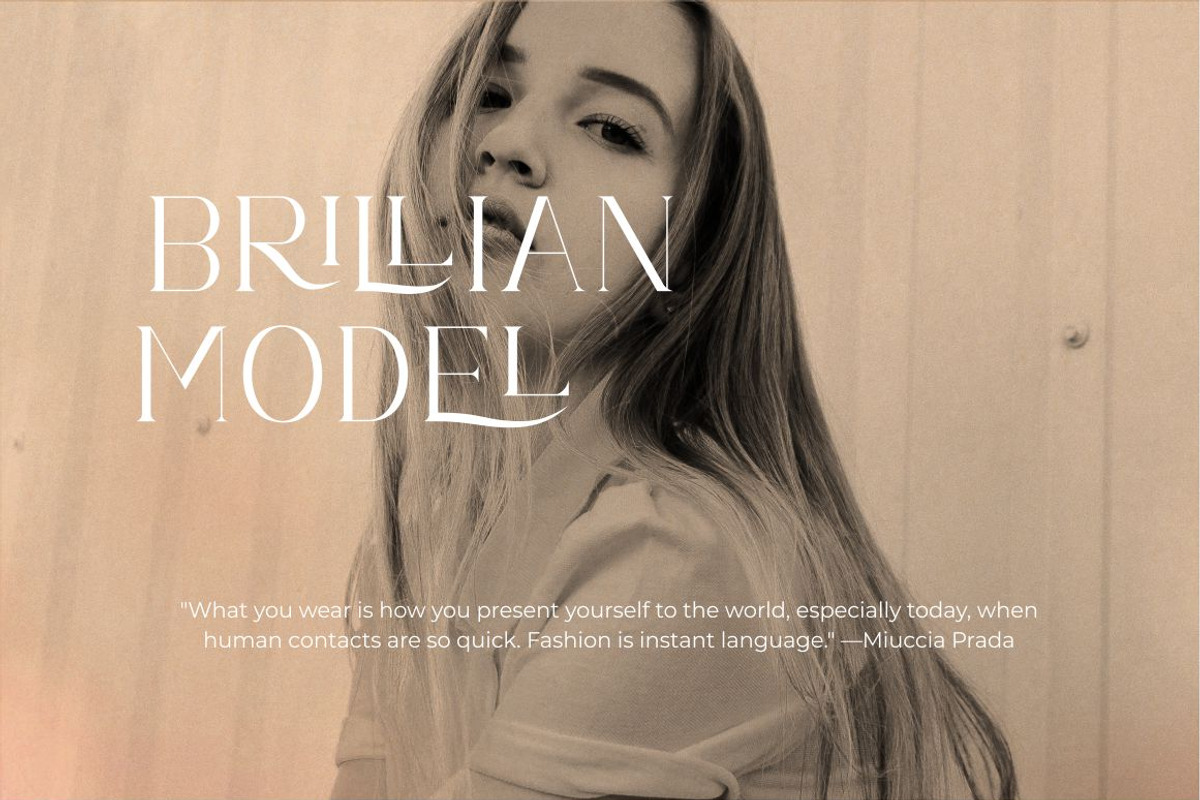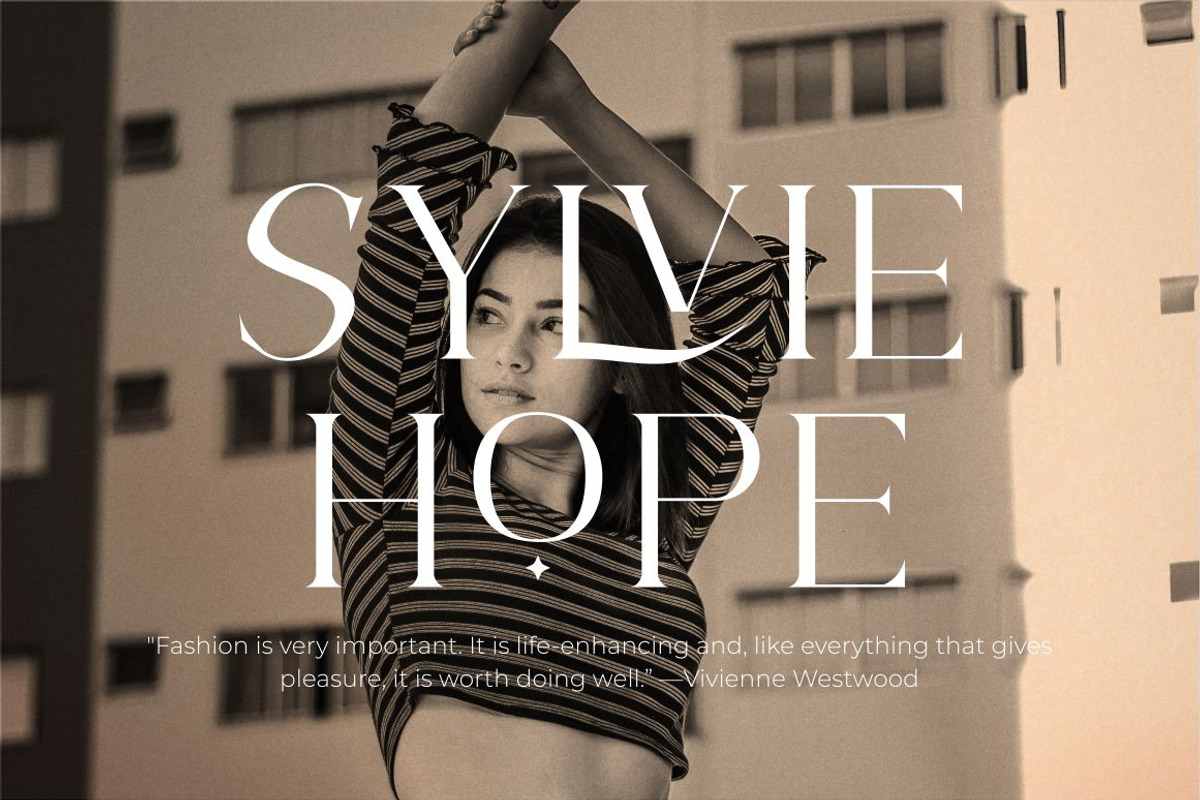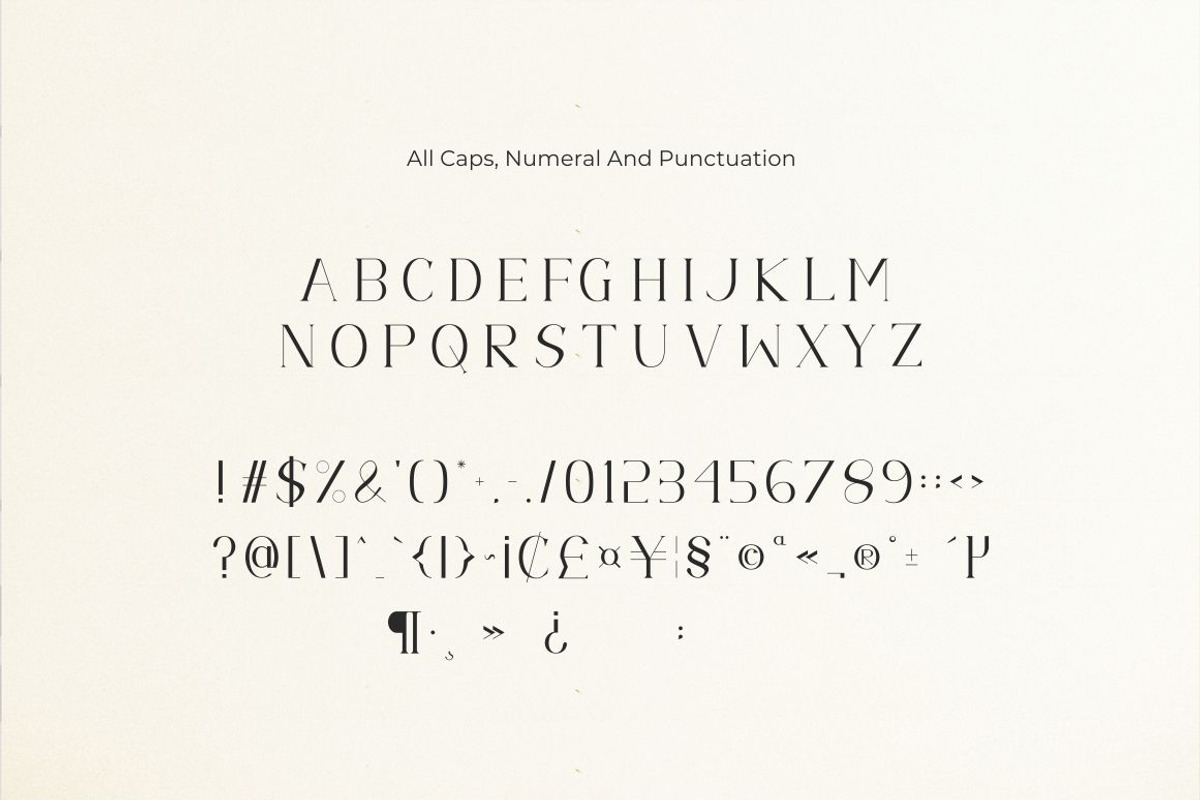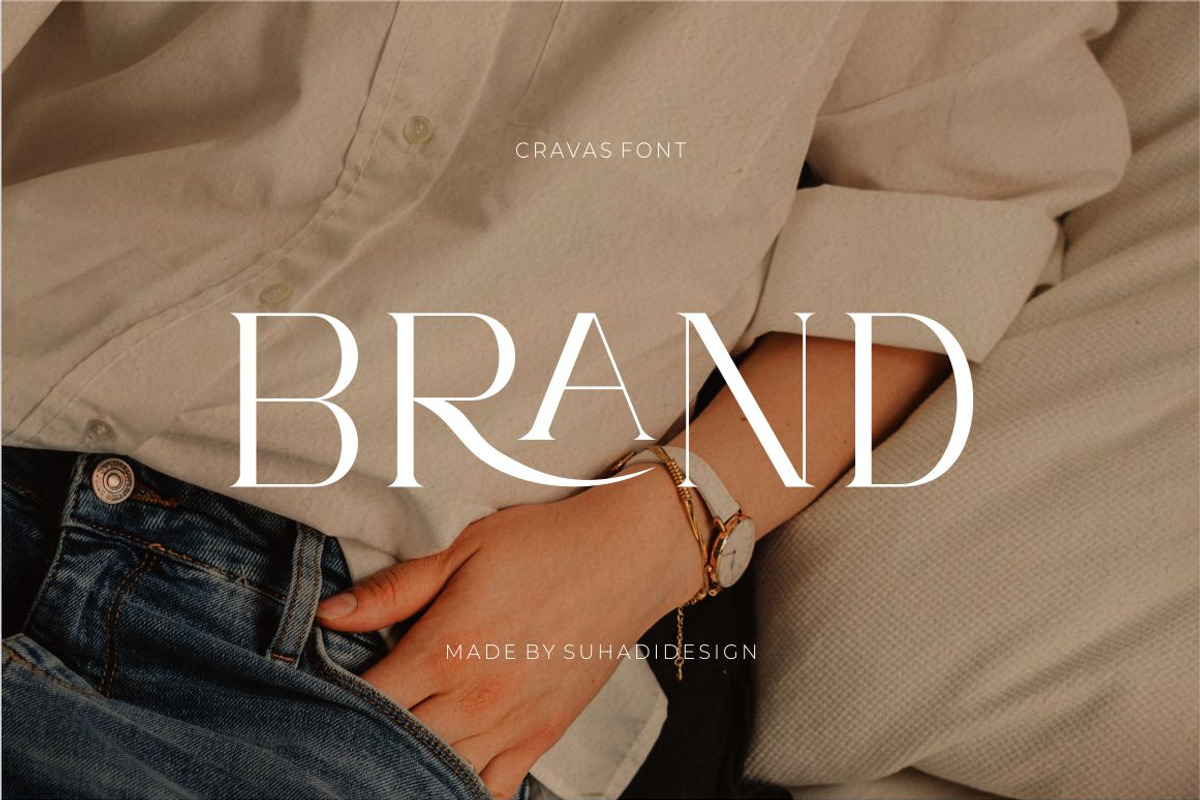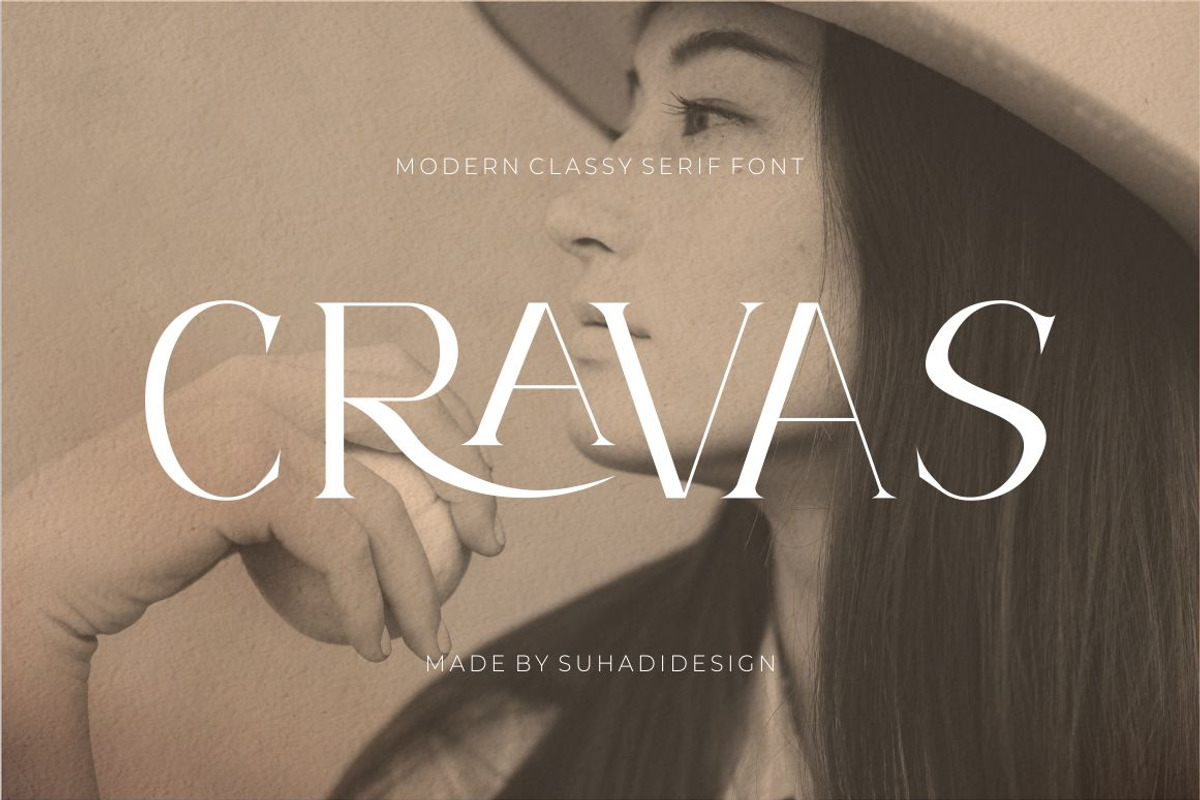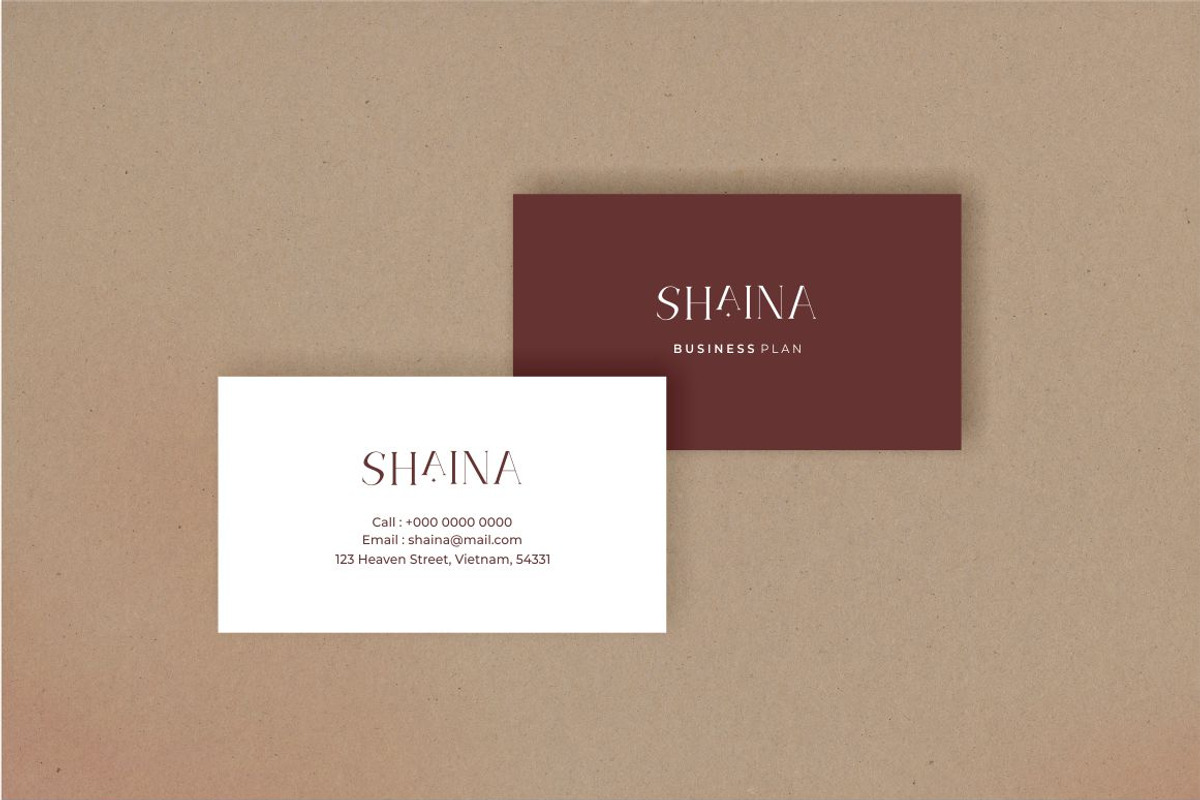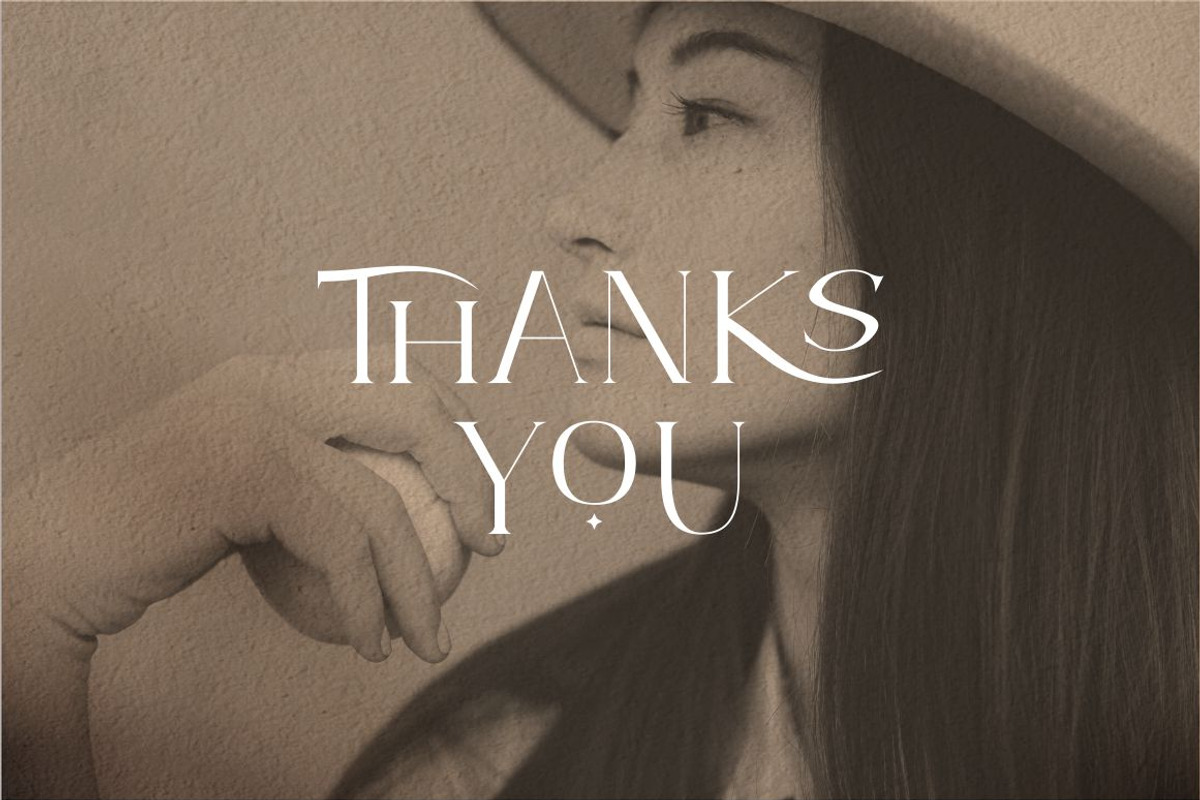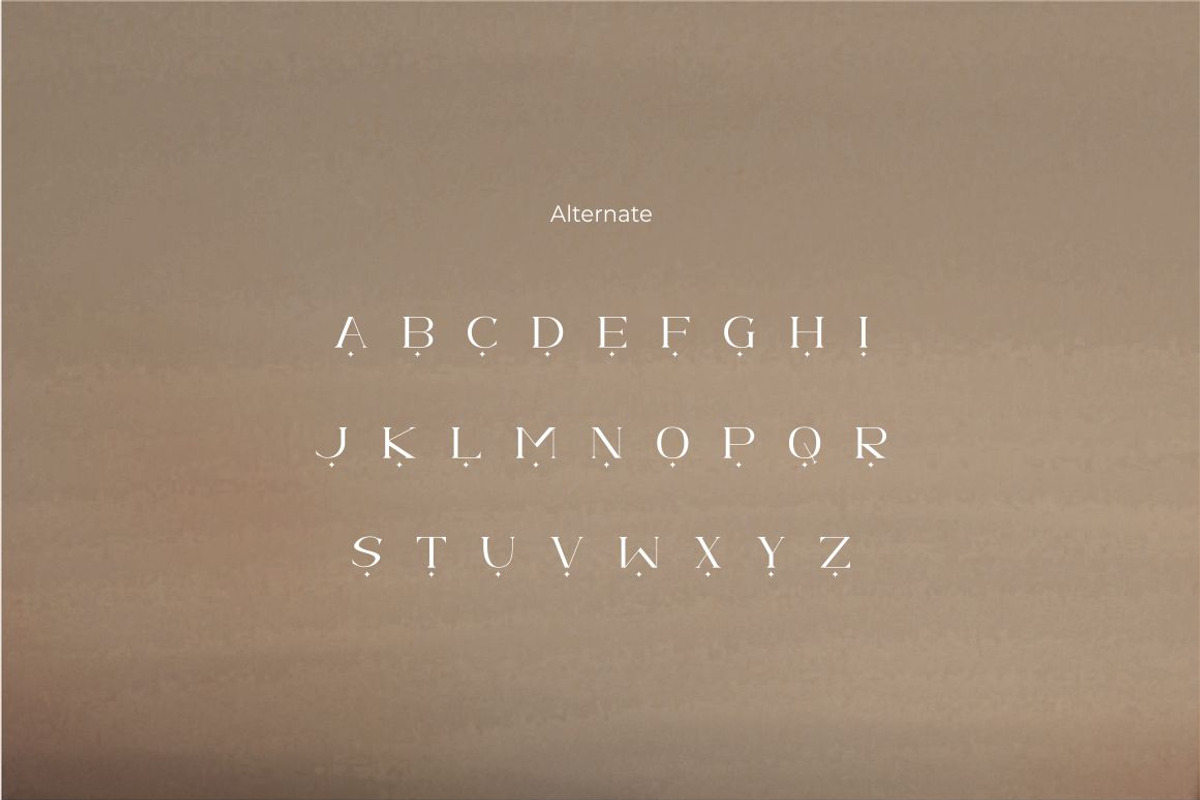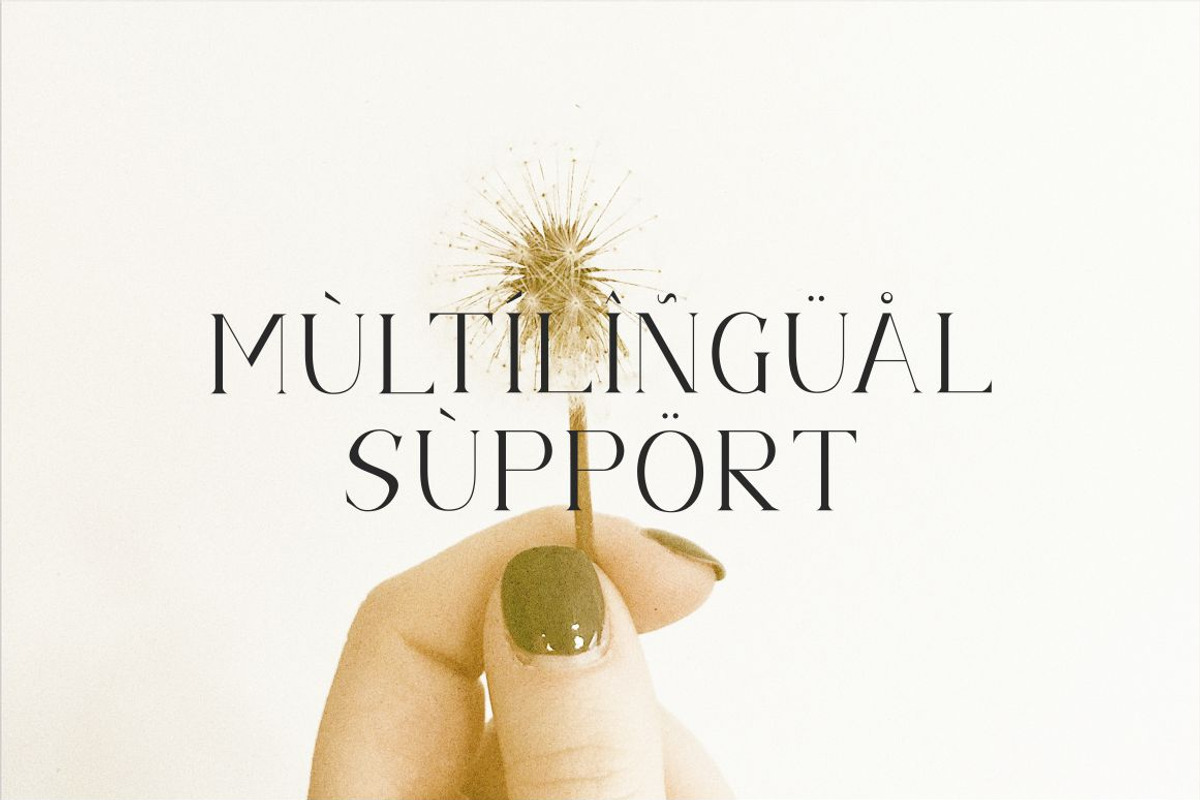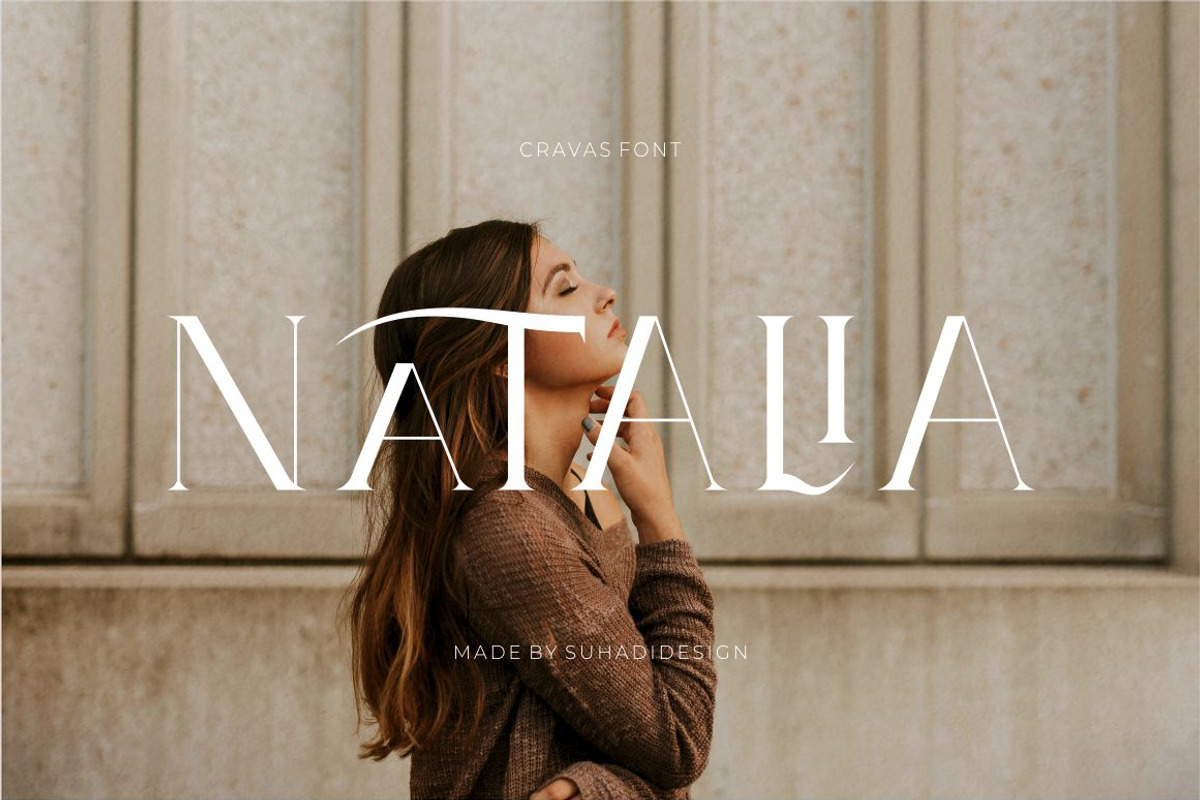
Cravas Classy Stylish Typeface Font
Hi Ladies and Gentlemen! According to the market demand, the font is more likely to be a modern font, so I decided to make this serif font in your view. Cravas font is a serif font with many ligatures very beautiful and popular, comes in a modern style to become a market favourite. We keep this font looking elegant, classy, easy to read, stylish, attractive and easy to use. Cravas Font is a great choice for beauty brands, magazines, newspapers, books, brand names, branding, brands, quotes, album covers and other projects. Cravas font is here to elevate the quality of your designs to new heights.
• All caps • Stylistic ligature • Stylistic alternate • Multilingual Support • Numbers and punctuation